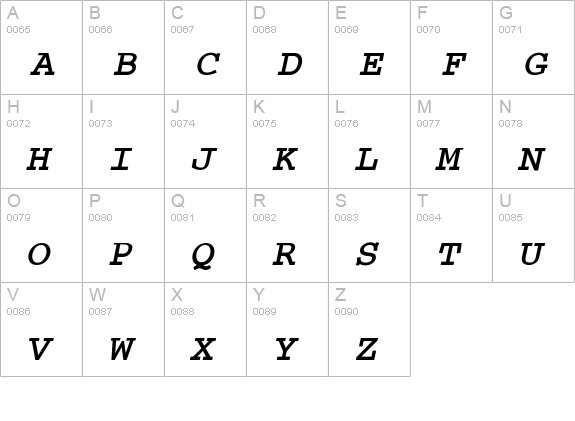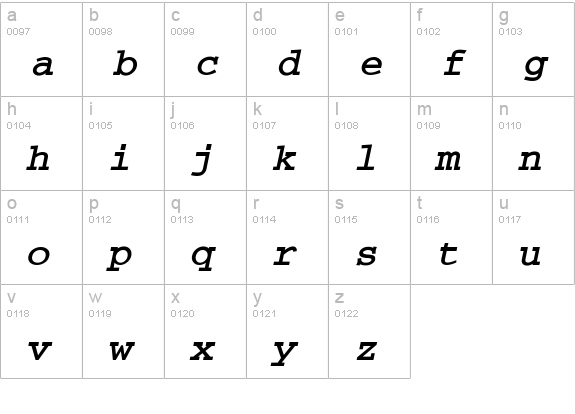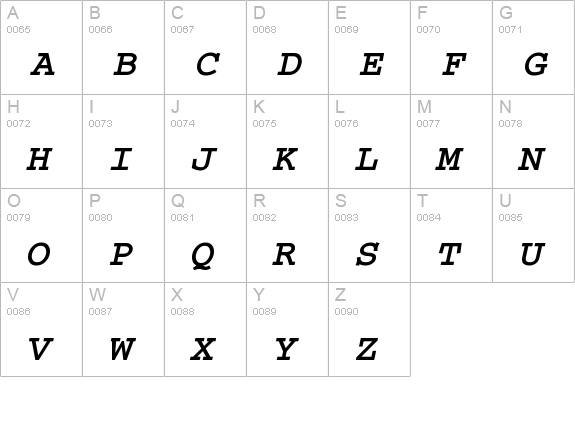
Courier-BoldO-a Font Details
Courier-BoldO-a is a bold and striking font that exudes a sense of authority and professionalism. With its clean lines and strong presence, this font is perfect for making a bold statement in any design project. The bold weight of Courier-BoldO-a ensures that your message will be delivered loud and clear, grabbing the attention of the reader. What makes Courier-BoldO-a even more appealing is that it is available for free download at FontsMarket.com. This means that you can easily access this powerful font and use it in your projects without any cost. Whether you need to create eye-catching headlines, design impactful posters, or craft compelling presentations, Courier-BoldO-a is the perfect choice for making a lasting impression. Download Courier-BoldO-a for free today at FontsMarket.com and elevate your design projects with this bold and impactful font.